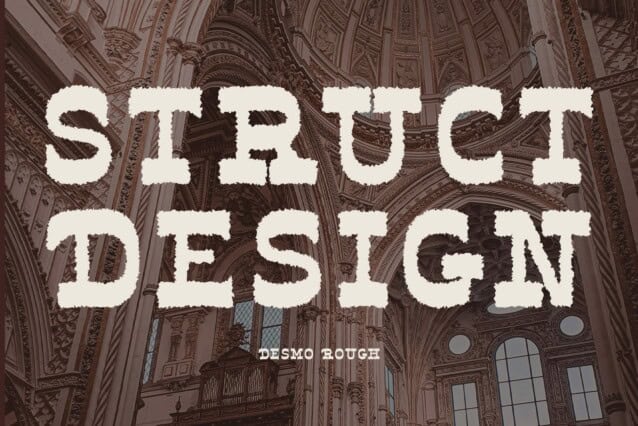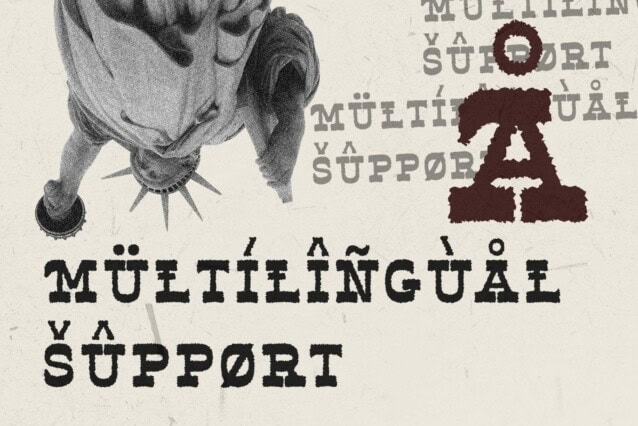
Desmo Rough Font
Desmo Rough Font is a slab serif font that combines bold, thick serifs with an innovative reverse contrast, where the usual letterform proportions are flipped. This striking design choice gives the font a powerful and distinctive presence, making it stand out in any project. The reverse contrast imparts a modern edge to the otherwise classic slab serif design, offering a fresh take on vintage typography.